Can anybody help me to identify this old movie font? Sorry about the low rez, it’s a screen grab from an old trailer.
Here it is again…
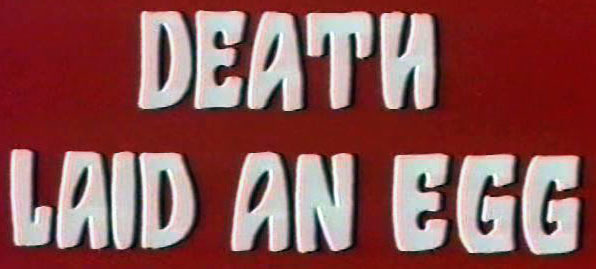
Because all the characters are slightly different I think this is not a font but hand lettered.
I think you could be right, but I’ve seen the same font used on other old movies. Could it be an old Letraset typeface?
Here is a similar version: https://www.youtube.com/watch?v=ZN9-c5QazD8